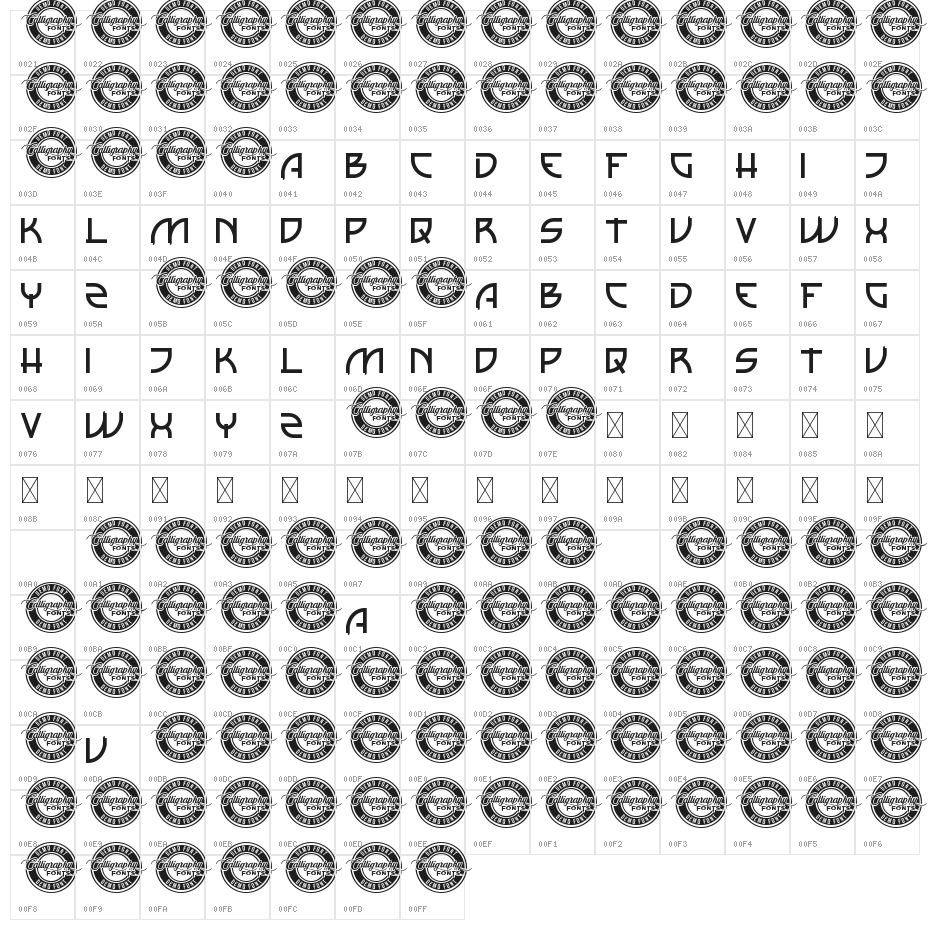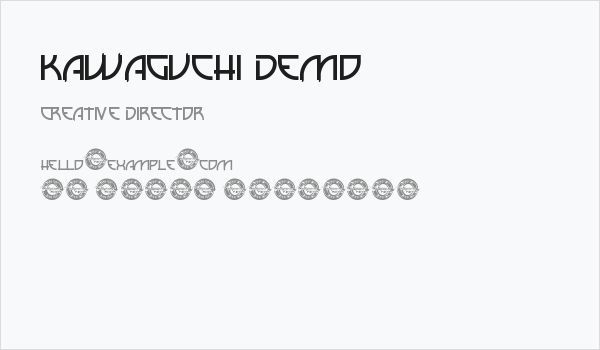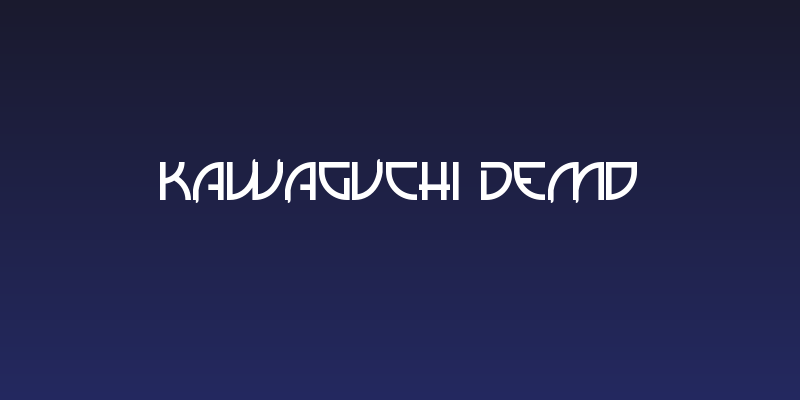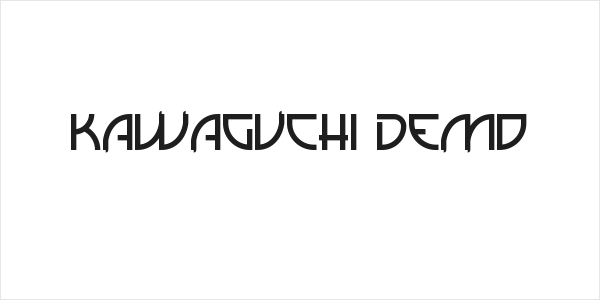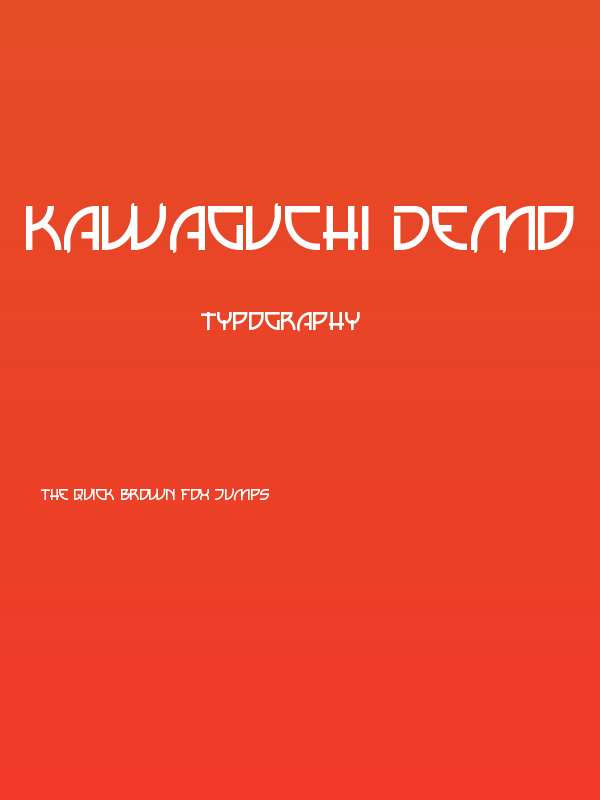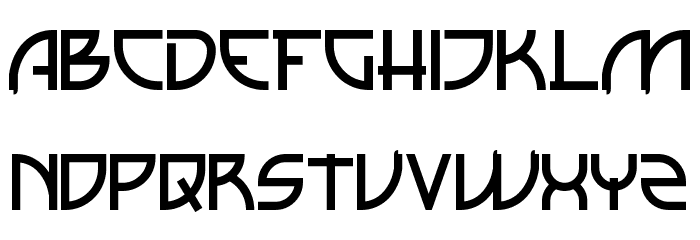
Kawaguchi Demo Font
This font exhibits a modern and futuristic style with its geometric and angular design. The characters are crafted with a unique blend of sharp edges and smooth curves, creating a visually striking appearance. The uppercase letters are particularly distinctive, with some characters featuring unexpected angles and cuts that add to the font's dynamic feel. The overall design is clean and bold, making it suitable for attention-grabbing headlines or logos. The font's structure is consistent across all characters, ensuring readability while maintaining its artistic flair.
| Proposed Projects | This font is perfect for futuristic branding, tech-related projects, modern posters, and innovative product packaging. |